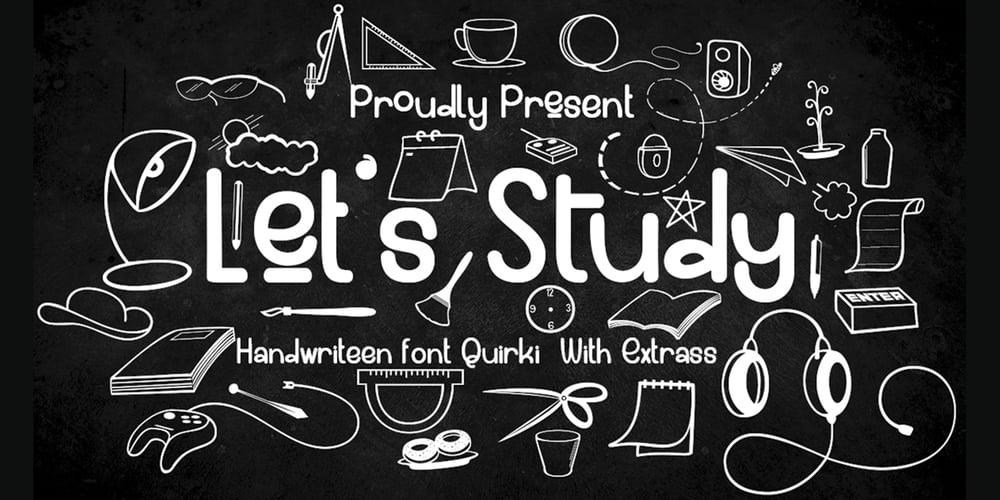
Lets study Font Family was designed by Ibram Syah and published by Jehansyah. Lets study contains 2 styles and family package options. Let’s Study the font is this handcrafted font, with bold and round style which is very beautiful to use as a design font of choice for your project, its unique character will make this font design look very natural, there are some additions that let you make your creation more real, suitable for all designs, posters, magazines, covers, invitations, media stories, social media, novels, story books and many more, this font will support your feelings when you want to express something cheerful or enthusiastic about learning